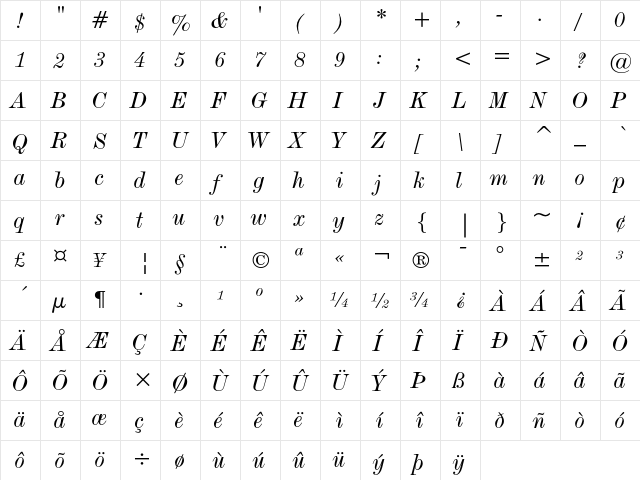
De Vinne Italic Text
Design Context for De Vinne Typeface
De Vinne takes a measured approach to typography — its balanced proportions and neutral character make it a reliable workhorse for both digital and print work. Its italic angle brings a sense of urgency and motion to the letterforms.
Pro Tip: Try De Vinne for annotation and caption copy alongside an upright companion — the contrast in angle creates a dynamic but ordered typographic system.